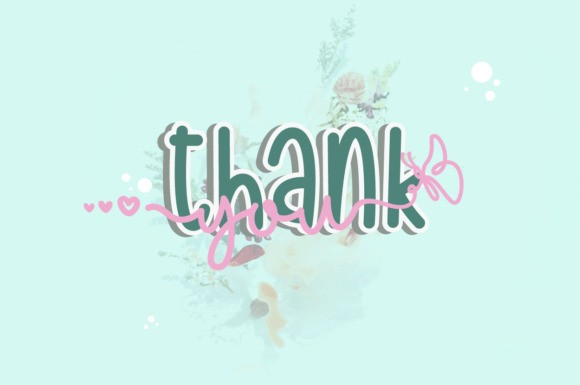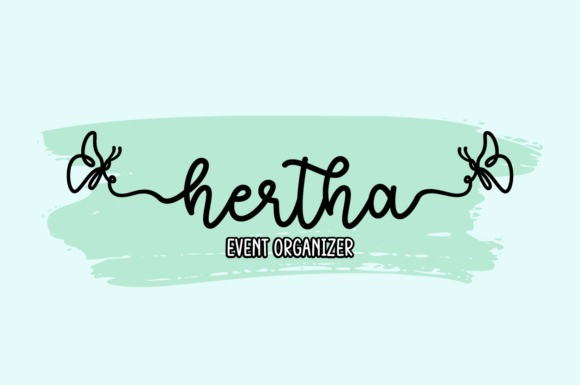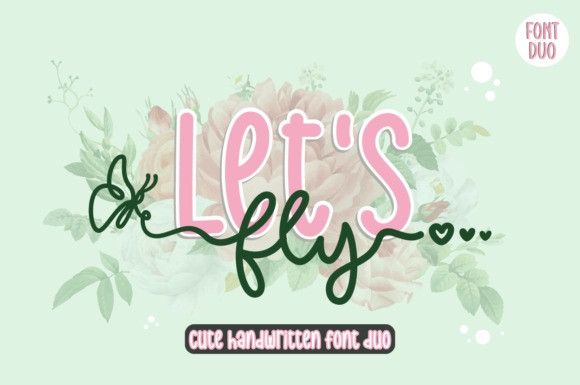
Let’s Fly Font
Let’s Fly consists of two fonts designed to complement each other perfectly. Together or apart, these fonts are ideal for adding a chic and cheery touch to your crafts. This font is PUA encoded which means you can access all glyphs and swashes with ease!